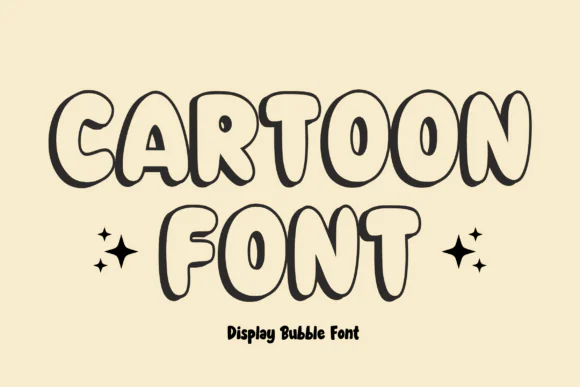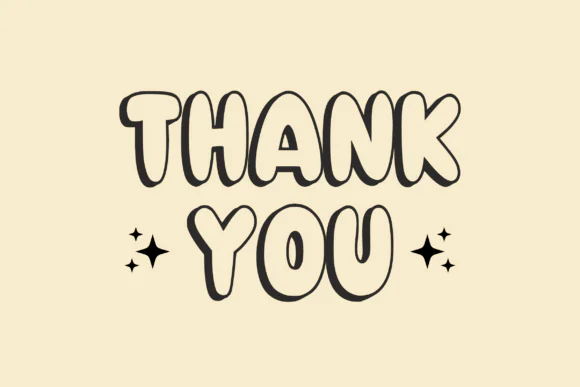
Create fun, friendly, and playful designs with Outline Bubble Font, a childish display typeface designed with a soft bubble-outline style and excellent readability. This font brings a cheerful and approachable look to your creative projects, making it perfect for designs that need a cute, simple, and fun visual personality.
Outline Bubble Font is ideal for crafters, designers, teachers, small business owners, and content creators who want a font that feels lighthearted and easy to use. Its clear bubble-style lettering makes it suitable for greeting cards, kids’ designs, digital graphics, classroom materials, stickers, labels, presentations, posters, party invitations, printable worksheets, scrapbooking, and DIY craft projects.
Whether you are designing a children’s activity page, a cute greeting card, a playful classroom poster, or a fun sticker set, Outline Bubble Font helps your message stand out with a warm and friendly feel.